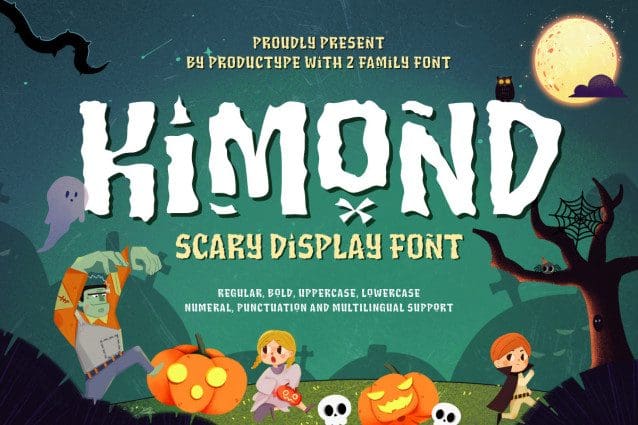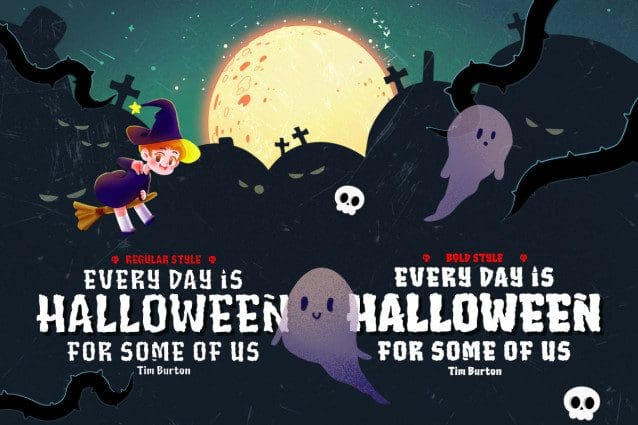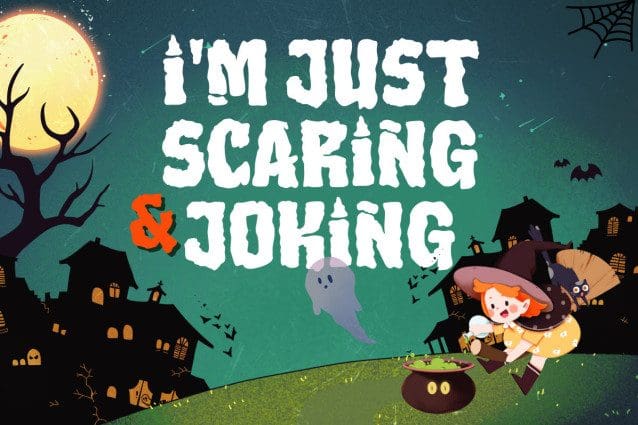
Kimond Halloween Font
Kimond Halloween Font, a bold Halloween display font that will infuse your designs with a chilling atmosphere. Featuring sharp, jagged lines and an unmistakably spooky aesthetic, Kimond Halloween is the perfect way to give your Halloween projects a ghostly touch.
Key Features:
• Specifically designed for haunting and Halloween-themed projects
• Unique, jagged letterforms that evoke a sense of dark mystery
• Perfect for bold headlines, eerie posters, spooky invitations, and themed branding
Ideal Uses:
✓ Haunted house posters
✓ Halloween party invites
✓ Frightful product packaging
✓ Event logos for spooky occasions
✓ Horror book or comic covers
Kimond Halloween offers a powerful and sinister look, making it a must-have for designers looking to create captivating and fear-inducing visuals. With its strong and memorable style, this font will give your Halloween creations the edge they need to stand out from the rest.
This Halloween, don’t just design — bewitch with Kimond Halloween !